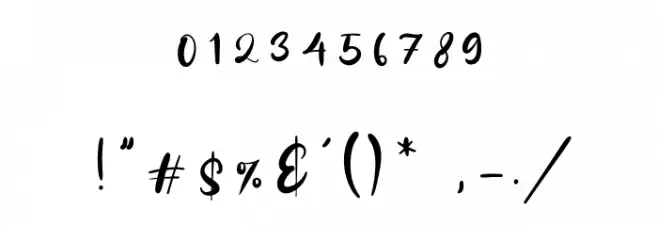
Rosaffina Font
Rosaffina Description
This font features a flowing, cursive style that exudes elegance and sophistication. The characters are interconnected with smooth, sweeping strokes, giving it a handwritten appearance. The uppercase letters are bold and prominent, while the lowercase letters maintain a consistent flow, enhancing readability. The numbers and special characters are designed to match the overall aesthetic, ensuring a cohesive look across all text. This font is perfect for projects that require a personal touch, such as invitations, greeting cards, and branding materials.
A flowing, cursive font with elegant, interconnected strokes from Uncategorized fonts.
- Proposed Projects: Ideal for wedding invitations, greeting cards, personal branding, and elegant logos.
- Overall Style: Elegant, Handwritten
- Use Case: Logos, Invitations, Greeting Cards